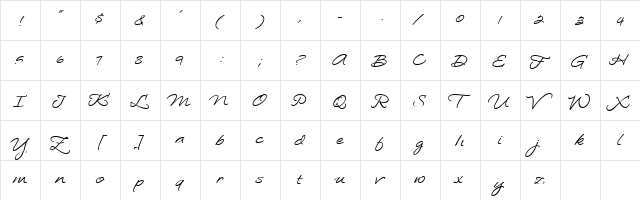
LoosieScript Regular Font Preview
LoosieScript Regular
LoosieScript Regular Font Details
Design Context for LoosieScript Typeface
LoosieScript brings a calligraphic fluidity to the page — its connecting strokes and expressive curves give it an unmistakably human quality.
Font Pairing: Combine LoosieScript with a simple geometric sans for maximum contrast — the tension between flowing curves and clean structure is a classic typographic pairing.
Pro Tip: Pair LoosieScript with a clean sans-serif for supporting text. The contrast between fluid script and geometric structure creates an elegant typographic hierarchy.